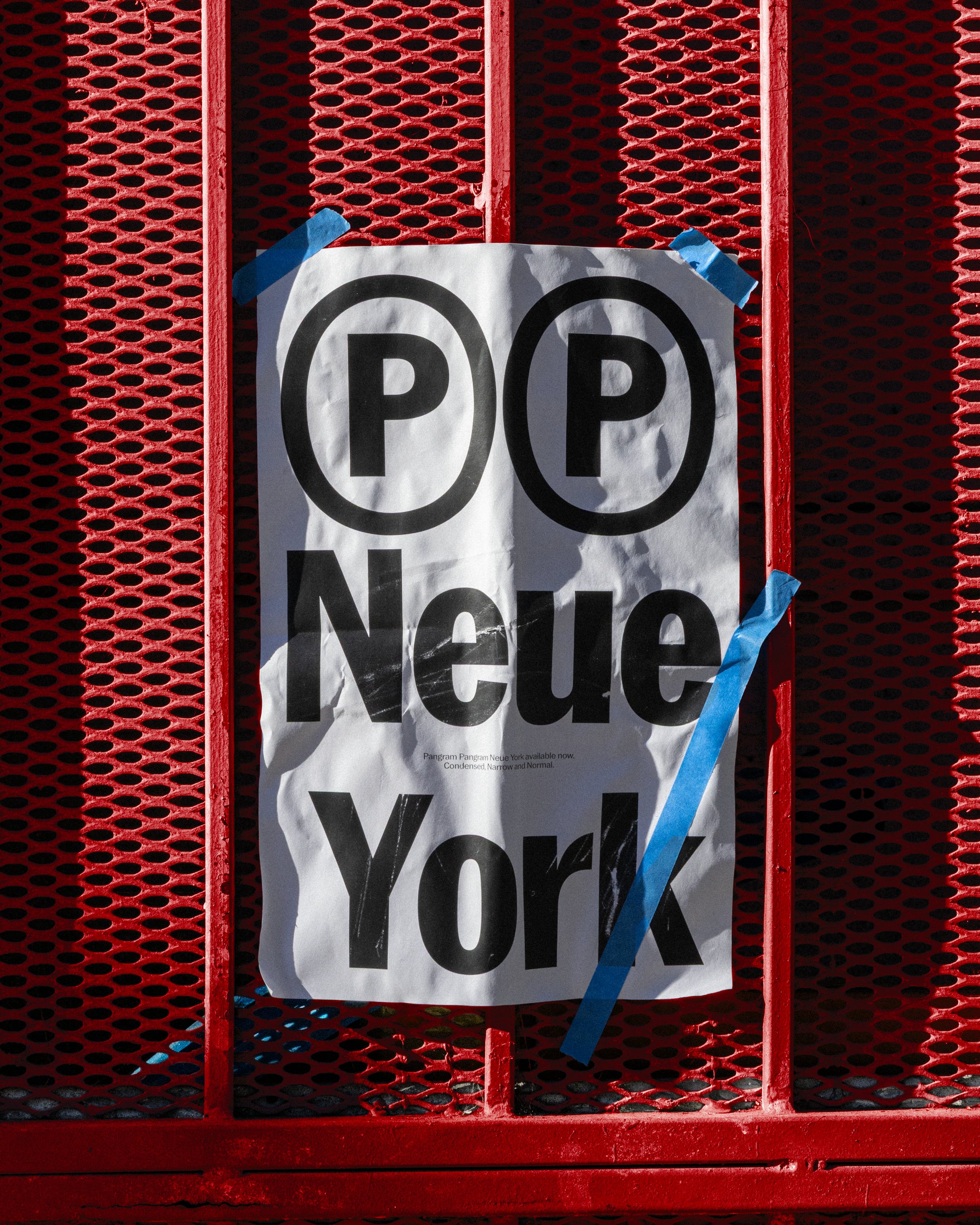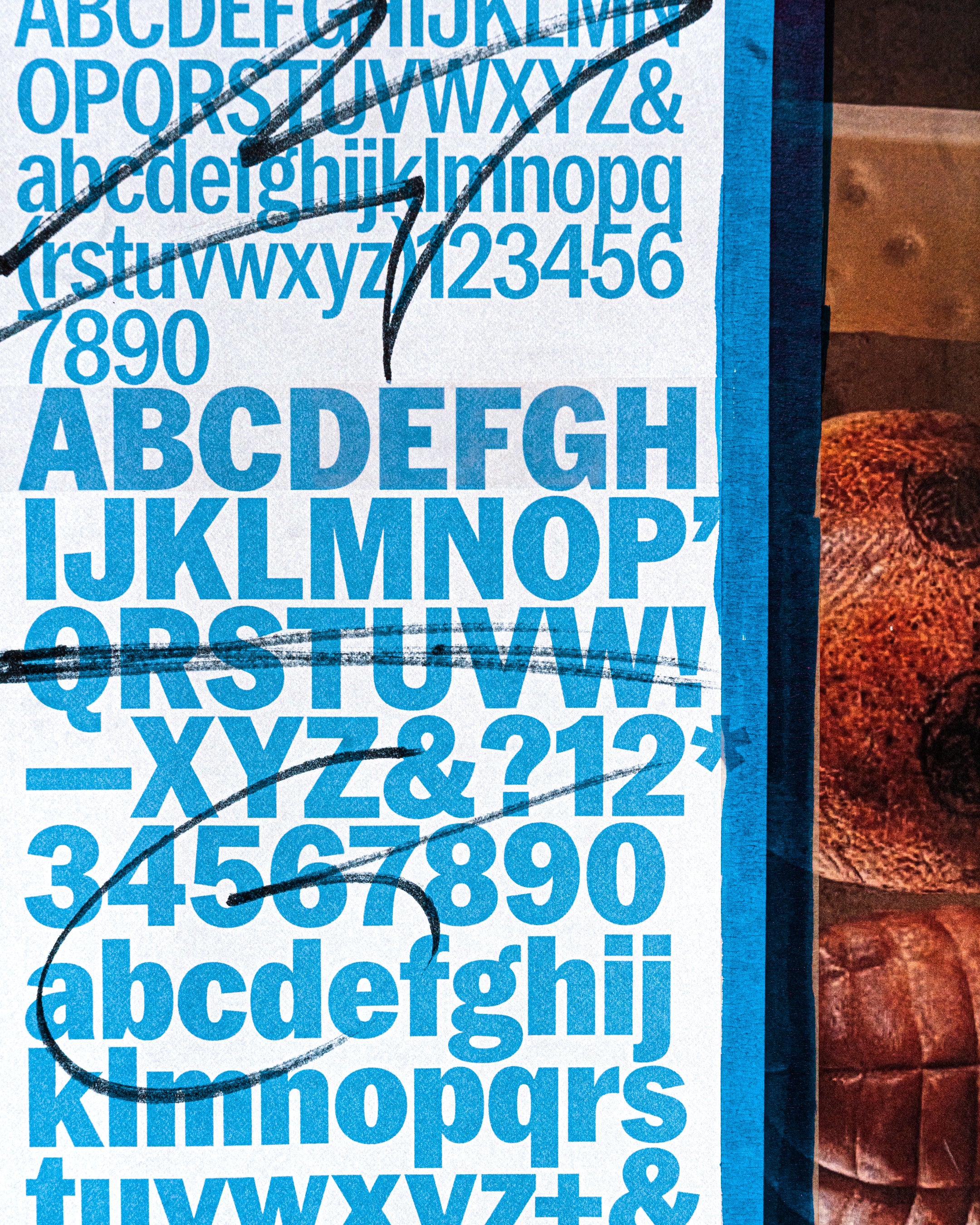
Neue York Normal
Shaped by the city’s layered visual noise.
Neue York Normal
The bodega awnings, the worn American gothics, the mosaic station tiles, the endless rhythm of Avenues and Streets.
Neue York Normal
The goal was to capture all of that and fold it into a contemporary type system that still carries a vintage pulse: clean in structure, functional in spirit, but gently rough around the edges, like something that has lived out in the open. Its three widths (Normal, Narrow and Condensed) shift in density the way the city shifts block by block.
Neue York Normal
PP Neue York is a contemporary sans serif typeface shaped directly by the visual texture of New York City. Its design draws from the city’s layered typographic landscape: the bold bodega awnings, weathered American gothic signage, mosaic subway station tiles, and the constant rhythm created by endless Avenues and Streets. Instead of recreating these elements literally, PP Neue York absorbs their influence and distills them into a refined, modern grotesk type system with a subtle vintage pulse. While structurally clean and highly functional, PP Neue York maintains a gentle roughness — the kind of softness and wear that comes from typography exposed to the world. This balance of clarity and character makes it a versatile choice for branding, editorial design, web typography, and visual identity systems seeking both precision and warmth. Built as a comprehensive 48-style family, PP Neue York includes 8 weights from Thin to Black, each paired with its own italic. The family is divided into three widths — Normal, Narrow, and Condensed — designed to adjust density and tone the way the city shifts from block to block. Despite these differences, all styles maintain strong family consistency, ensuring seamless transitions across weights and widths. This cohesive structure allows PP Neue York to function as a full typographic toolkit — suitable for both display applications that require strong visual presence and text settings where clarity and rhythm matter most. Whether used for fashion campaigns, editorial spreads, signage systems, or modern brand identities, PP Neue York captures the character of a city that is constantly moving, evolving, and reinventing itself. It blends the honesty of old New York typography with the precision of contemporary type design, resulting in a modern grotesk that feels lived-in, adaptable, and unmistakably grounded in place. PP Neue York is not just a typeface — it is a typographic interpretation of New York’s energy, structure, and visual noise, designed for designers who want a sans serif that carries both history and modern clarity.
Neue York Normal's Features
Alternate a
a
→
a
Alternate E, F
E F
→
E F
Alternate J
J
→
J
Round dots
ij!?:;.
Alternate g
g
→
g
Alternate &
&
→
&
Alternate Q
Q
→
Q
Standard ligatures
fi ff ffi fl ffl
A layered gothic rooted in the city's rich designs
PP Neue York is a sans serif shaped by the city’s layered visual noise: the bodega awnings, the worn American gothics, the mosaic station tiles, the endless rhythm of Avenues and Streets. The goal was to capture all of that and fold it into a contemporary type system that still carries a vintage pulse: clean in structure, functional in spirit, but gently rough around the edges, like something that has lived out in the open. Its three widths (Normal, Narrow and Condensed) shift in density the way the city shifts block by block.
Neue York is built as a 48-style family: 8 weights from Thin to Black, each with its own italic, spread across three widths. The widths were drawn with deliberately different x-heights to suit different roles, the Condensed is taller and tighter for headlines, while the Normal has proportions better suited for text and continuous reading. Despite these differences, the family maintains a strong sense of consistency across styles, which allows it to work effectively in both display and text settings.